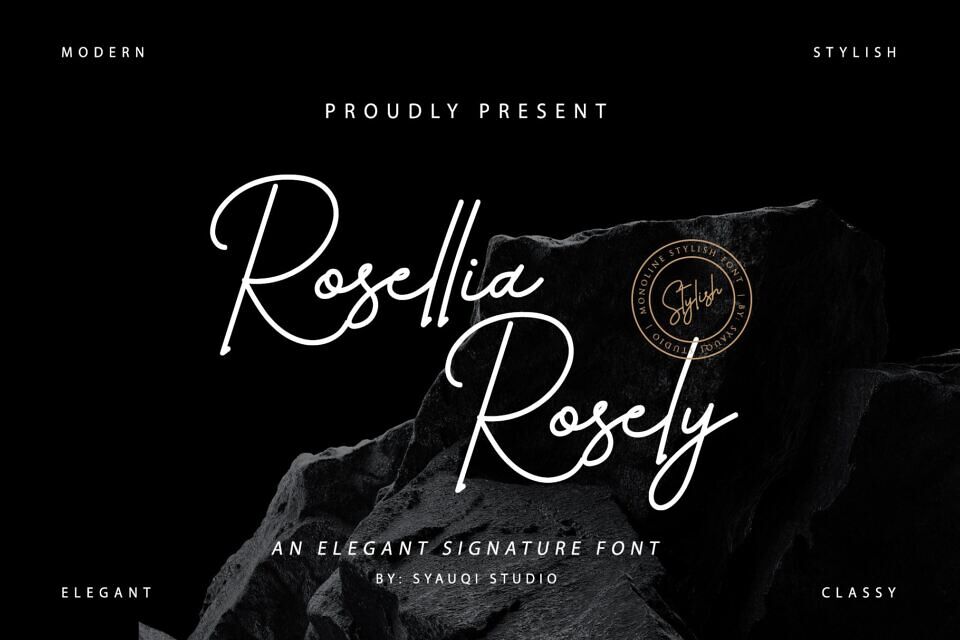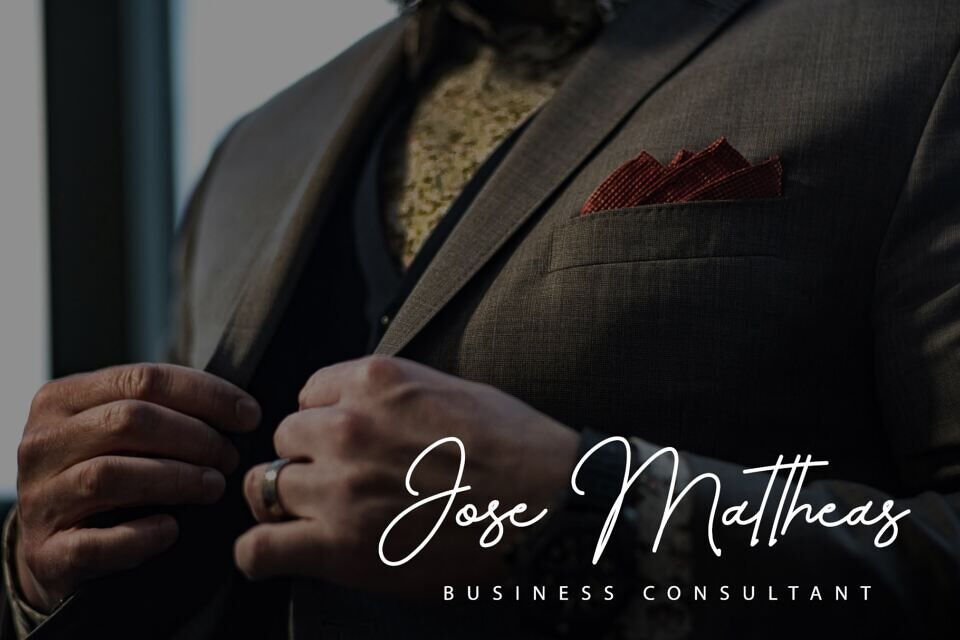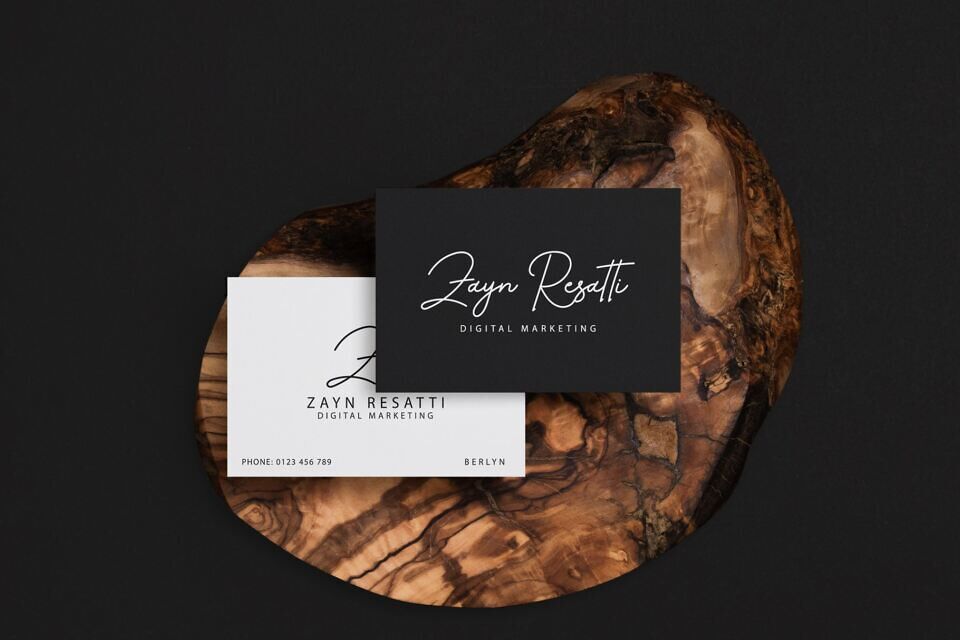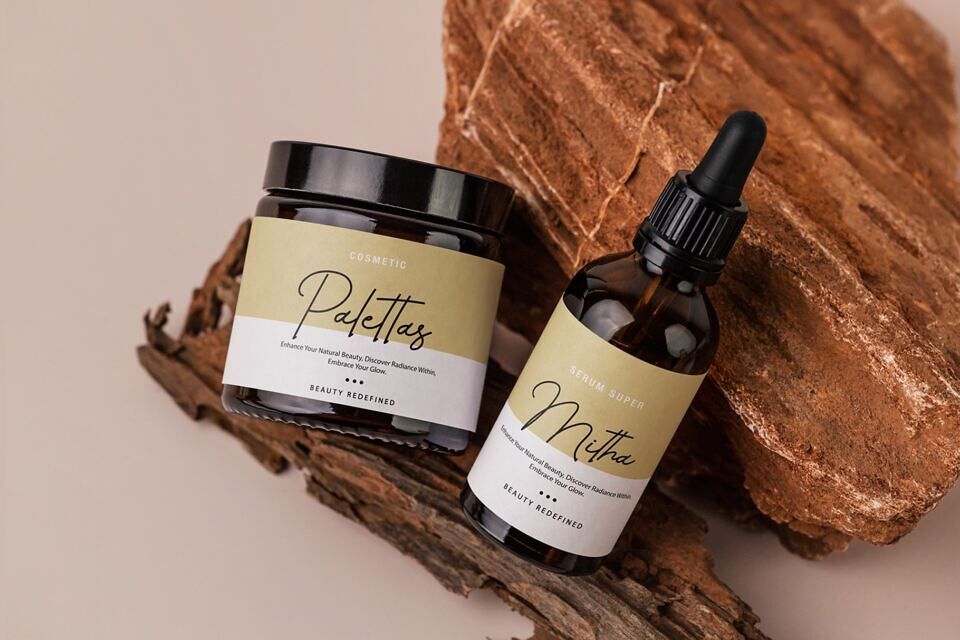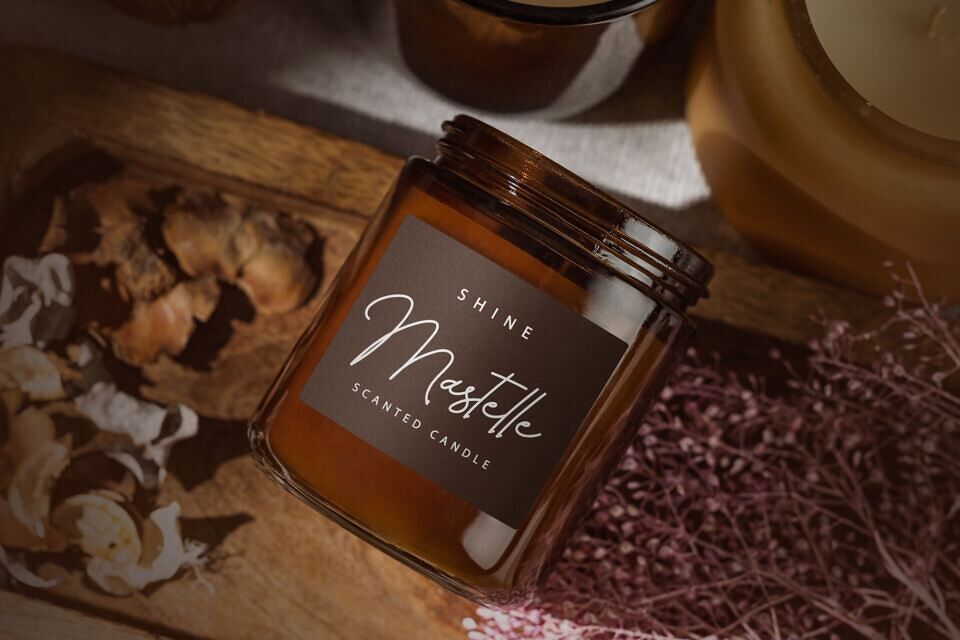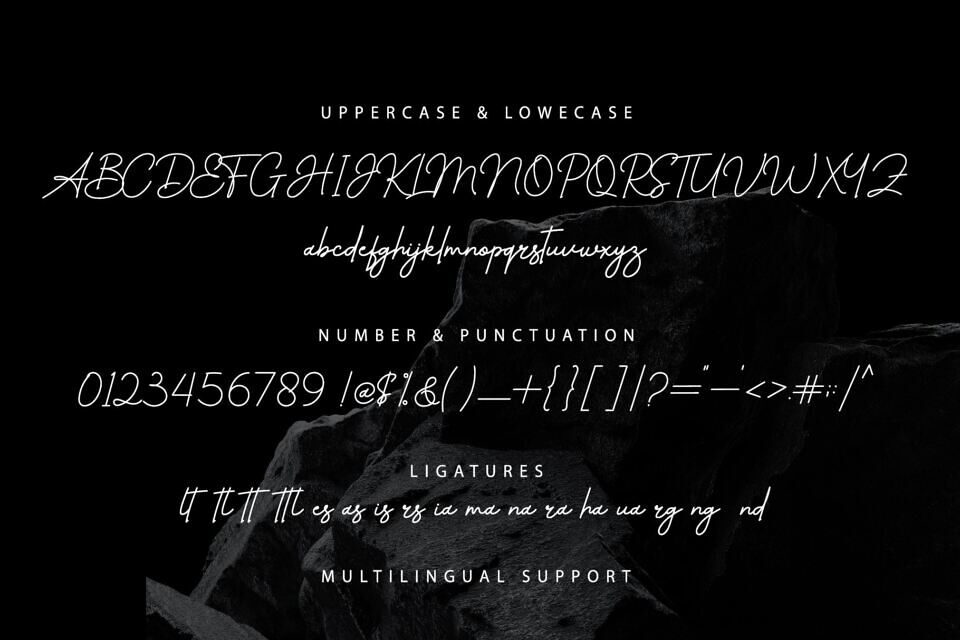
Experience the allure of Rosellia Rosely, a meticulously crafted handwritten font designed for those who appreciate elegance and sophistication in their typography. With its flowing lines and graceful curves, Rosellia Rosely embodies the essence of a refined signature, adding a touch of personal flair to every project.
Perfect for Brand Identity, Wedding Invitations, Product Packaging, Personal & Commercial Projects.